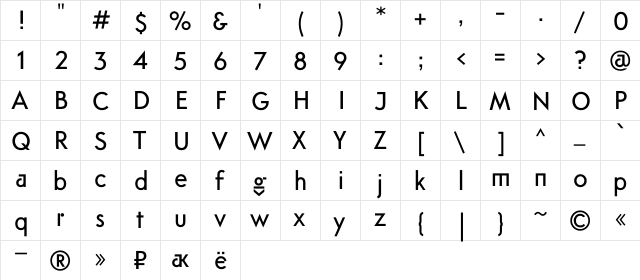
ft anima Medium
Medium · Igor Kosinsky Igor Kosinsky ·
Design Context for ft anima Typeface
ft anima is a composed and adaptable typeface that performs quietly and consistently across a wide range of design contexts.